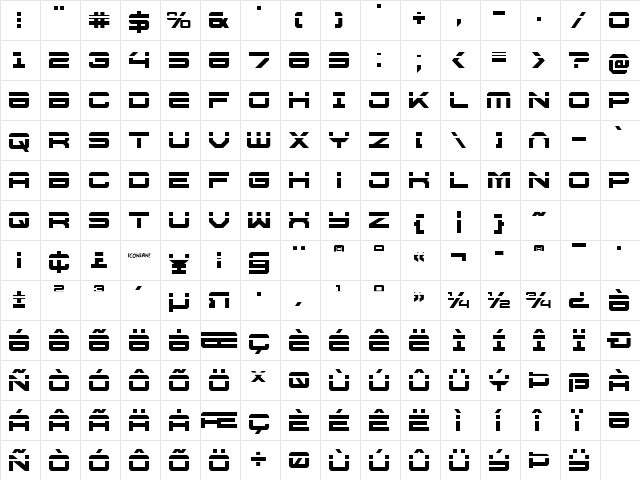
Complete U.S.S. Dallas Laser Regular glyph index. Displaying only characters natively supported by U.S.S. Dallas Laser Regular font.
U.S.S. Dallas Laser is a composed and adaptable typeface that performs quietly and consistently across a wide range of design contexts.